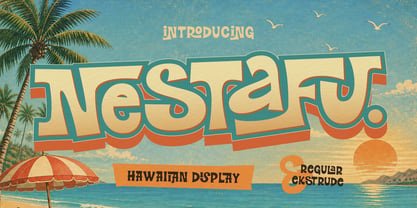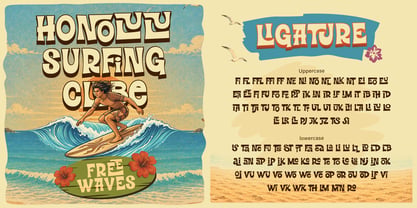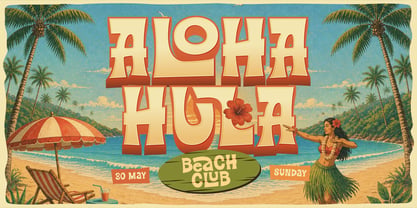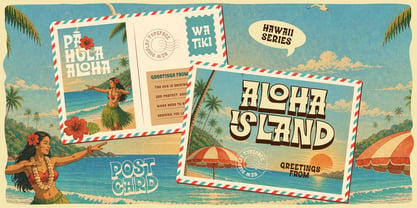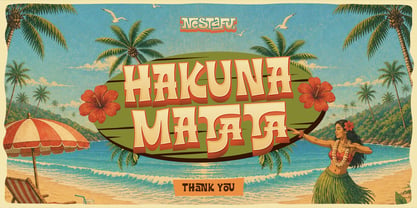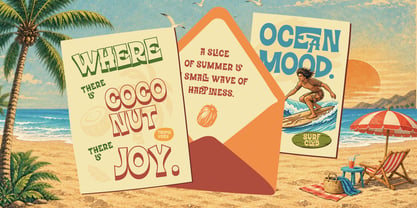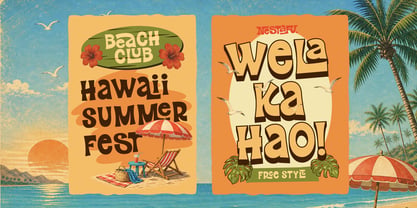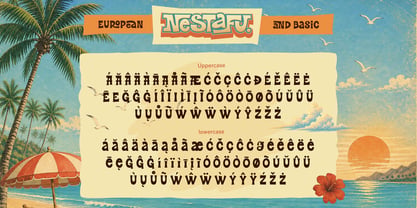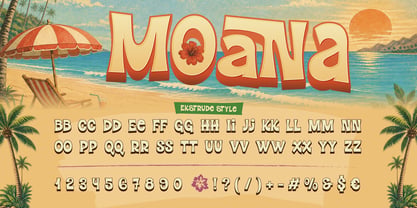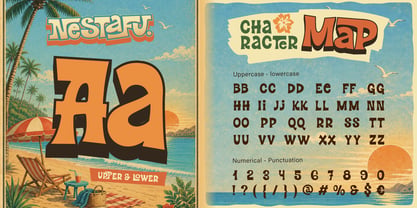
Nestafu
Die Schriftfamilie Nestafu wurde von Eric Kurniawan entworfen und von Burntilldead veröffentlicht. Nestafu enthält 2 Stile und Familienpaketoptionen. Mehr über diese Familie
Soak up the sun and bring retro island vibes to your graphics with Nestafu, a fun and bold Hawaiian display font. Inspired by vintage surf posters, beach clubs, and sunny Hawaiian getaways, Nestafu features playful letterforms with wavy, organic curves that capture the carefree energy of summer.
Nestafu includes two stackable styles—Regular and Extrude (3D Shadow)—allowing you to layer your headlines effortlessly for an eye-catching 3D effect. Packed with creative ligatures, upper and lowercase variations, and full multilingual support, this typeface gives you complete freedom to build energetic headlines, tropical drink labels, and beach party graphics in seconds.
Perfect For:
• Summer Beach Party Posters, Flyers & Festival Banners
• Tropical Drink Packaging, Juice Cans & Coconut Water Labels
• Surf Apparel, T-shirt Merch & Beachwear Logos
• Hawaiian Restaurant Menus, Tiki Bar Branding & Signage
• Vacation Travel Postcards, Retro Stickers & Social Media Graphics